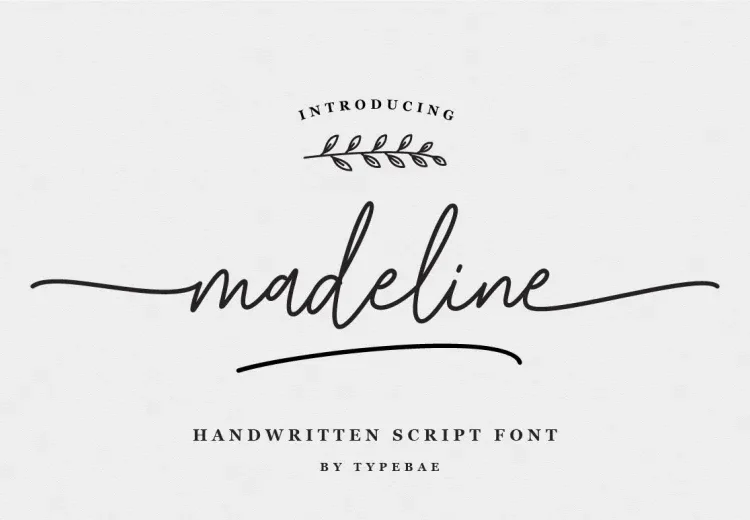
Madeline Font
Madeline is a beautifully handwritten organic font that exudes authenticity and modern charm, making it perfect for a variety of creative applications. Its fluid, natural strokes give it a signature-like quality, making it an excellent choice for branding, wedding invitations, and promotional materials. The font’s ease of use combined with its genuine, handcrafted appearance ensures that it adds a personal touch to any project, whether it’s packaging, product designs, or any other creative endeavor.
Madeline comes fully equipped with a comprehensive set of uppercase and lowercase letters, punctuation, numerals, and multilingual symbols. It also includes lowercase beginning and ending swashes, ligatures, and additional swashes, allowing for even greater customization and versatility in your designs. These features make Madeline particularly suitable for projects that require a touch of elegance and personality, such as invitations, greeting cards, and personalized stationery.